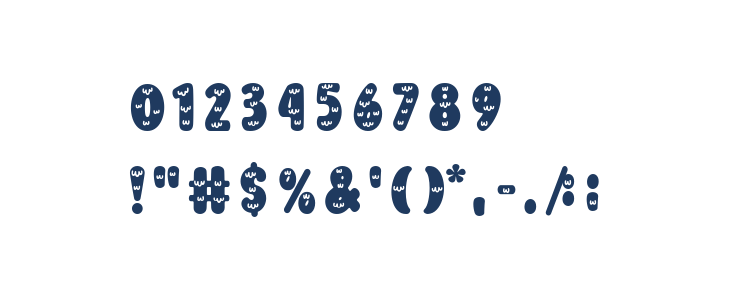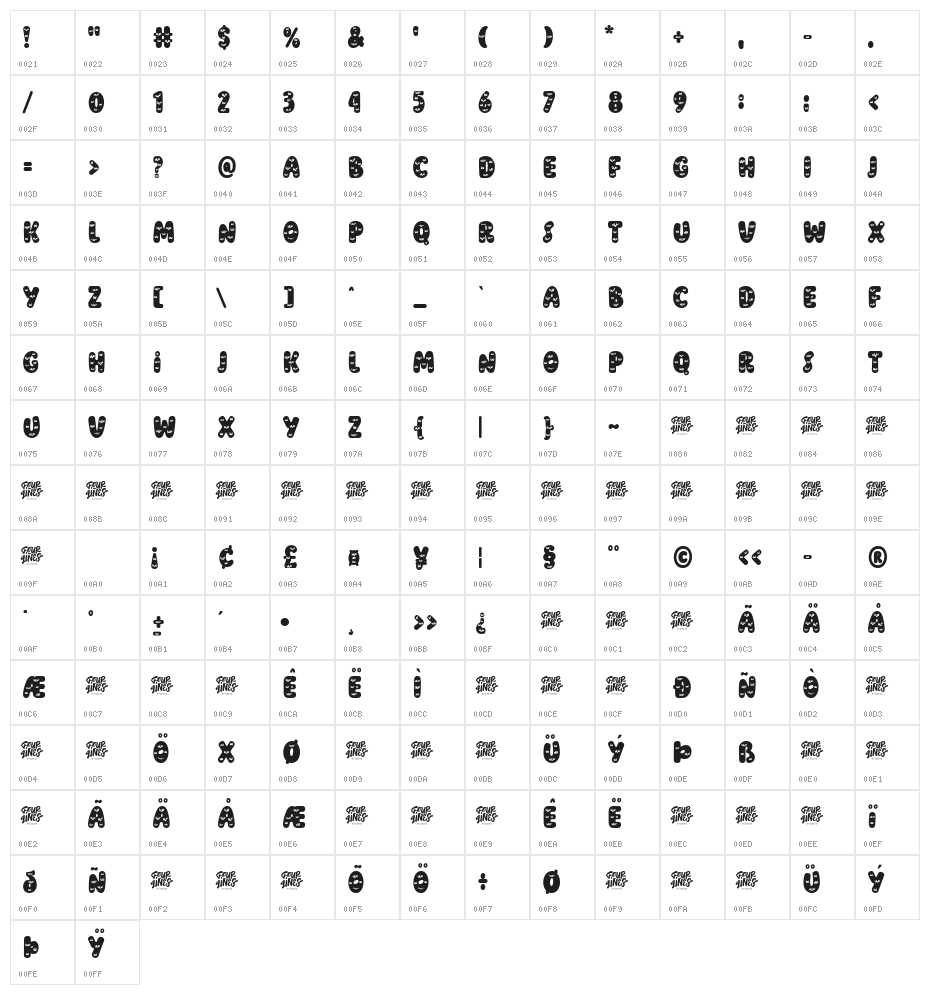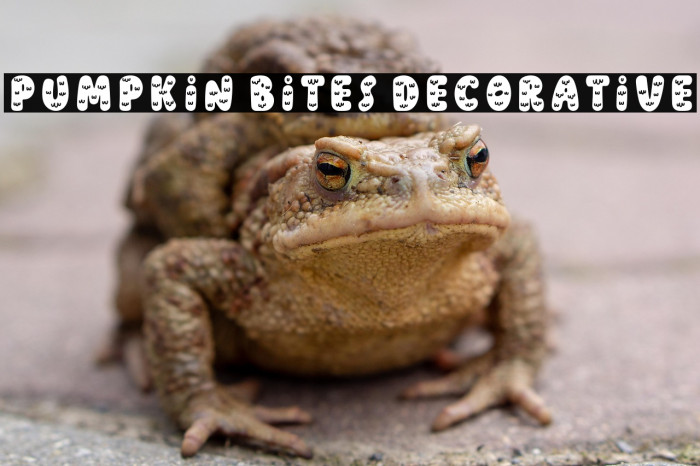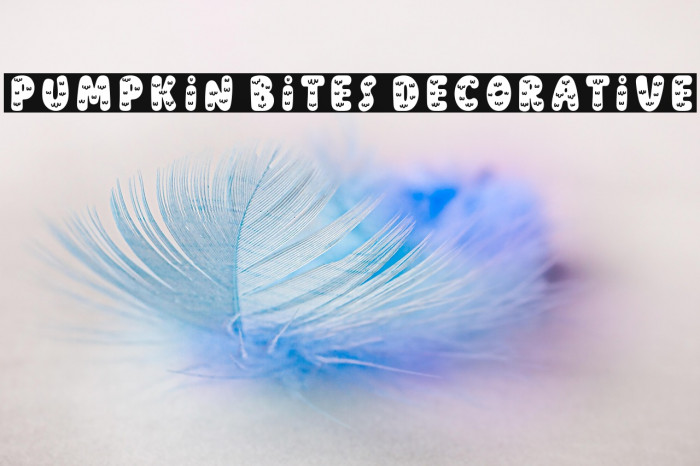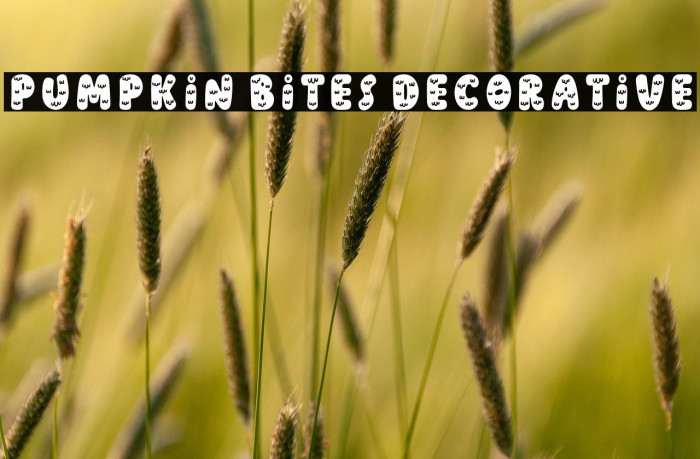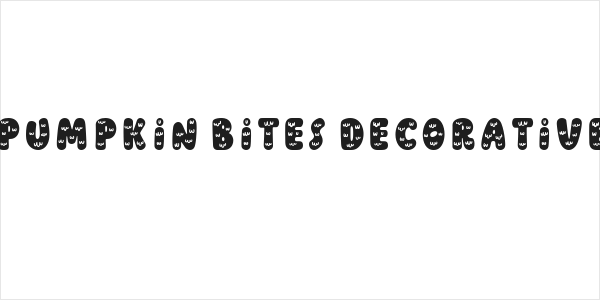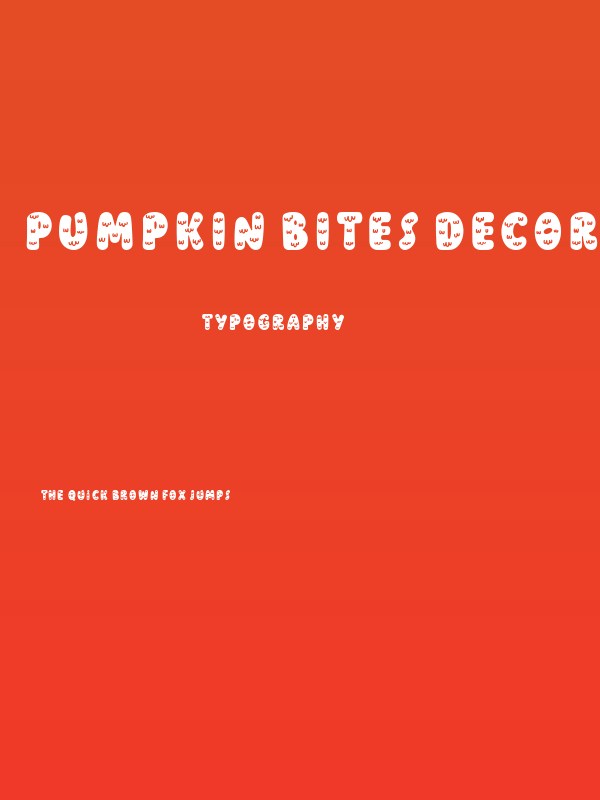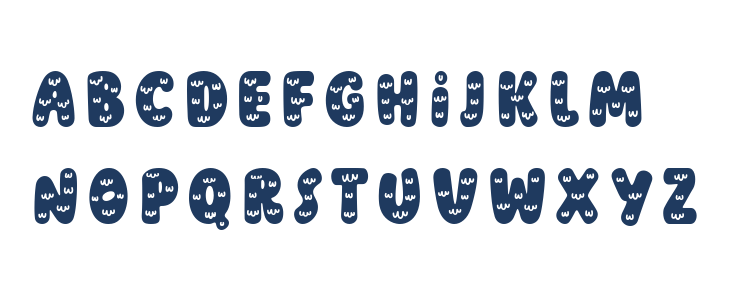
Pumpkin Bites Decorative Font
Pumpkin Bites Decorative Description
This playful and whimsical font features bold, rounded characters with a unique dripping effect, reminiscent of melting or gooey textures. The letters are evenly spaced and maintain a consistent thickness throughout, giving them a cohesive and unified appearance. The font's decorative style makes it ideal for capturing attention and adding a fun, quirky element to any design. Its boldness ensures readability, while the distinctive design adds a touch of creativity and flair.
| Overall Style | Playful, Quirky, Decorative |
| Use Case | Headlines, Posters, Branding |
| Proposed Projects | Ideal for Halloween-themed designs, children's book covers, party invitations, and playful branding projects. |